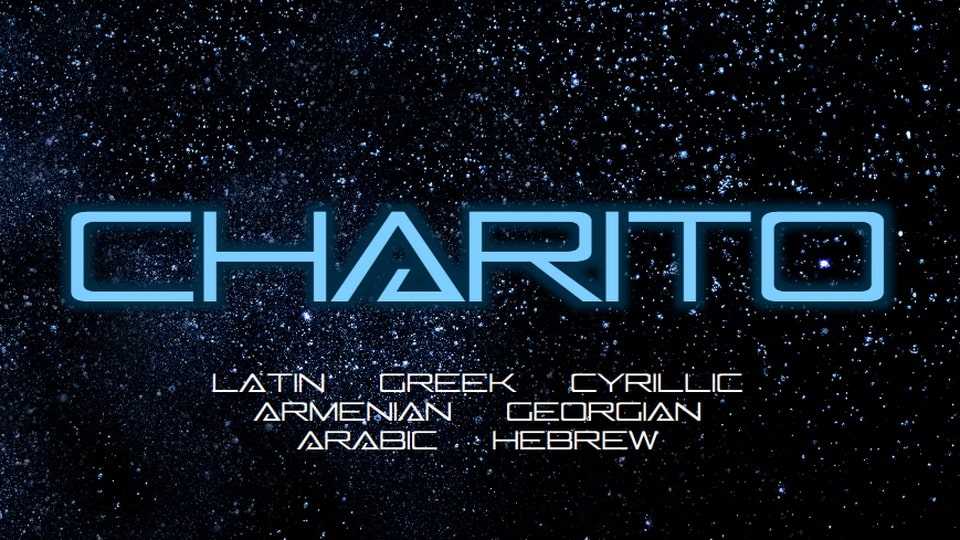
Download Charito font, a sleek, futuristic display typeface that blends geometric precision with a sci-fi aesthetic. Its clean lines and sharp angles create a sense of innovation.
Designer: Yasen Nestorov